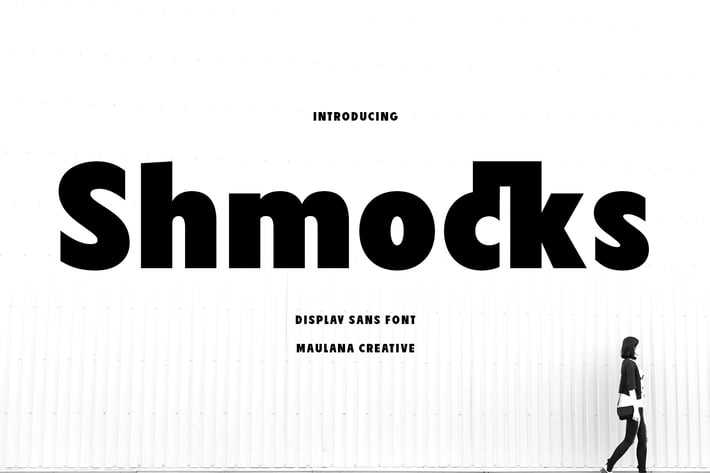
Shmocks Retro Sans Display Font
Shmocks is a classic yet modern sans font. Bold stroke, fun character with a bit of ligatures and alternates. To give you an extra creative work. Shmocks font support multilingual more than 100+ language. This font is good for logo design, Social media, Movie Titles, Books Titles, a short text even a long text letter and good for your secondary text font with script or serif. Make a stunning work with Shmocks font.